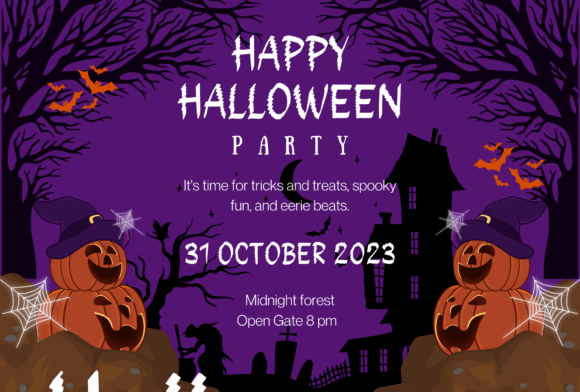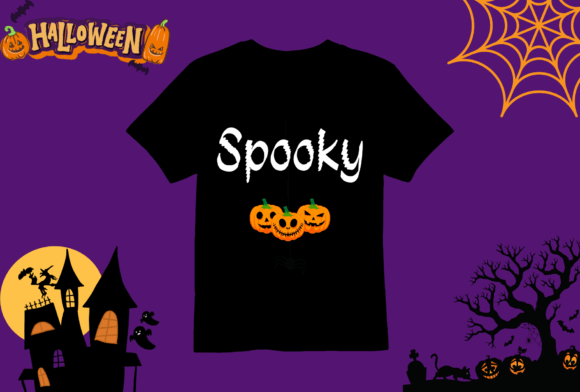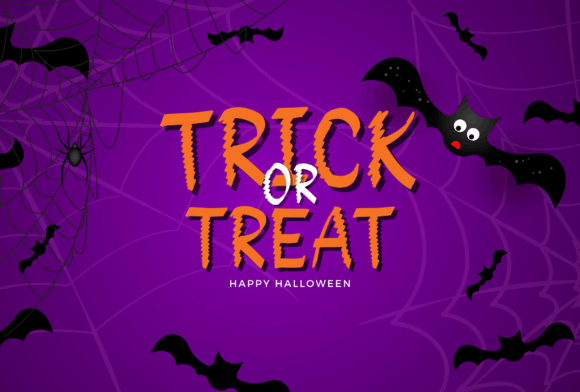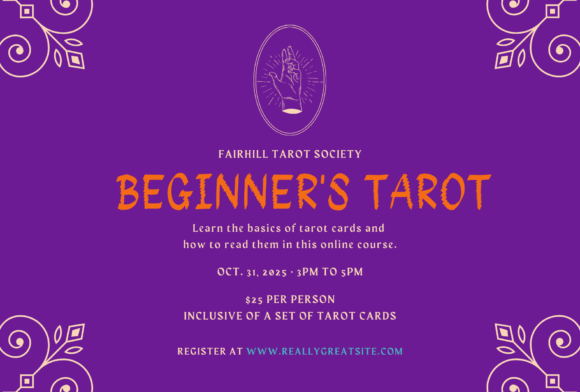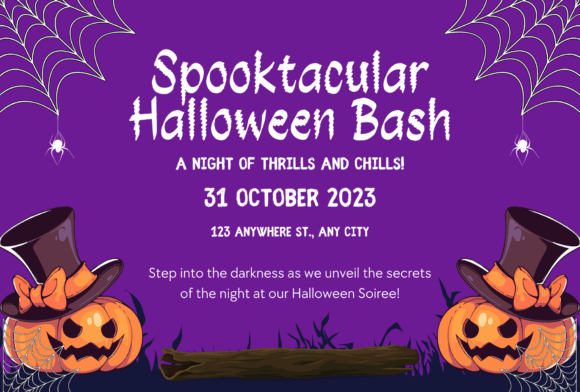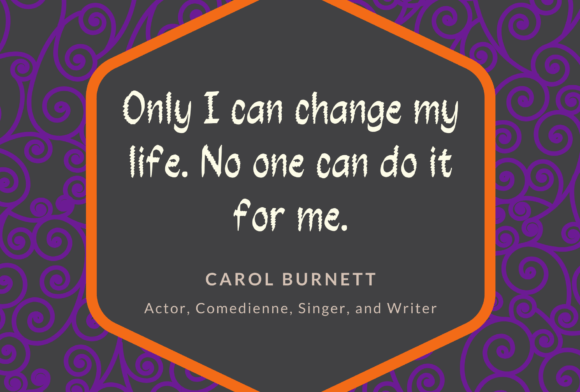
Spooky Season Vibes with the Halloween Night Font
As the clock strikes midnight on October 31st, and the moon casts an eerie glow, the creative juices start flowing. The air is filled with the thrill of spooky decorations, the chatter of trick-or-treaters, and the excitement of crafting unique Halloween-themed designs. For designers, this time of year is a chance to unleash their creativity and create something truly unforgettable. And, what better way to capture the essence of Halloween than with the perfect font?
Enter the Halloween Night Font, a fun and unique handwritten font designed specifically for the spookiest night of the year. This font is more than just a design element – it’s a key to unlocking the magic of Halloween. Whether you’re creating a spooky t-shirt, a haunted mug, or a creepy keychain, the Halloween Night Font is the perfect companion for your creative endeavors.
Halloween Night Font Key Features
- Unique Characteristics: The font features a spooky and eerie atmosphere, with intricate details and ornaments that evoke a sense of Halloween spirit.
- Font Style: Halloween Night font is available in both regular and bold styles, allowing for versatile use in various design applications.
Halloween Night Font Review
Overall, I think the Halloween Night Font is a solid choice for those looking to create spooky and eerie designs. ✨ The font’s unique blend of horror and whimsy is sure to grab attention and set a haunting tone for any project.
- ✨ Unique and creative design: The font’s blend of horror and whimsy is a great asset for designers looking to create something truly original.
- ✨ Great for Halloween-themed designs: As the name suggests, the font is perfect for creating spooky and eerie designs related to Halloween.
- ✨ Easy to read: Despite its spooky appearance, the font is surprisingly easy to read, making it a great choice for longer text.
- ⚠️ Limited versatility: While the font is perfect for Halloween-themed designs, it may not be as versatile for other types of projects.
- ⚠️ May be too spooky for some audiences: Depending on the project, the font’s spooky design may be too intense for some audiences.
- ⚠️ Limited font sizes: The font may not be as effective at larger font sizes, which could limit its use in certain projects.
Overall, I think the Halloween Night Font is a great choice for designers looking to create spooky and eerie designs. While it may have some limitations, its unique design and ease of use make it a solid addition to any designer’s toolkit.
Halloween Night Font: A Practical Application Guide
The Halloween Night Font is ideal for creating spooky and festive designs for Halloween-themed events, decorations, and invitations. It’s also great for adding a touch of whimsy to other designs, such as party invitations, brochures, and social media graphics.
For the best results, pair the Halloween Night Font with complementary colors and graphics that evoke a spooky or festive atmosphere. Experiment with different font sizes, colors, and styles to create a unique and eye-catching design.